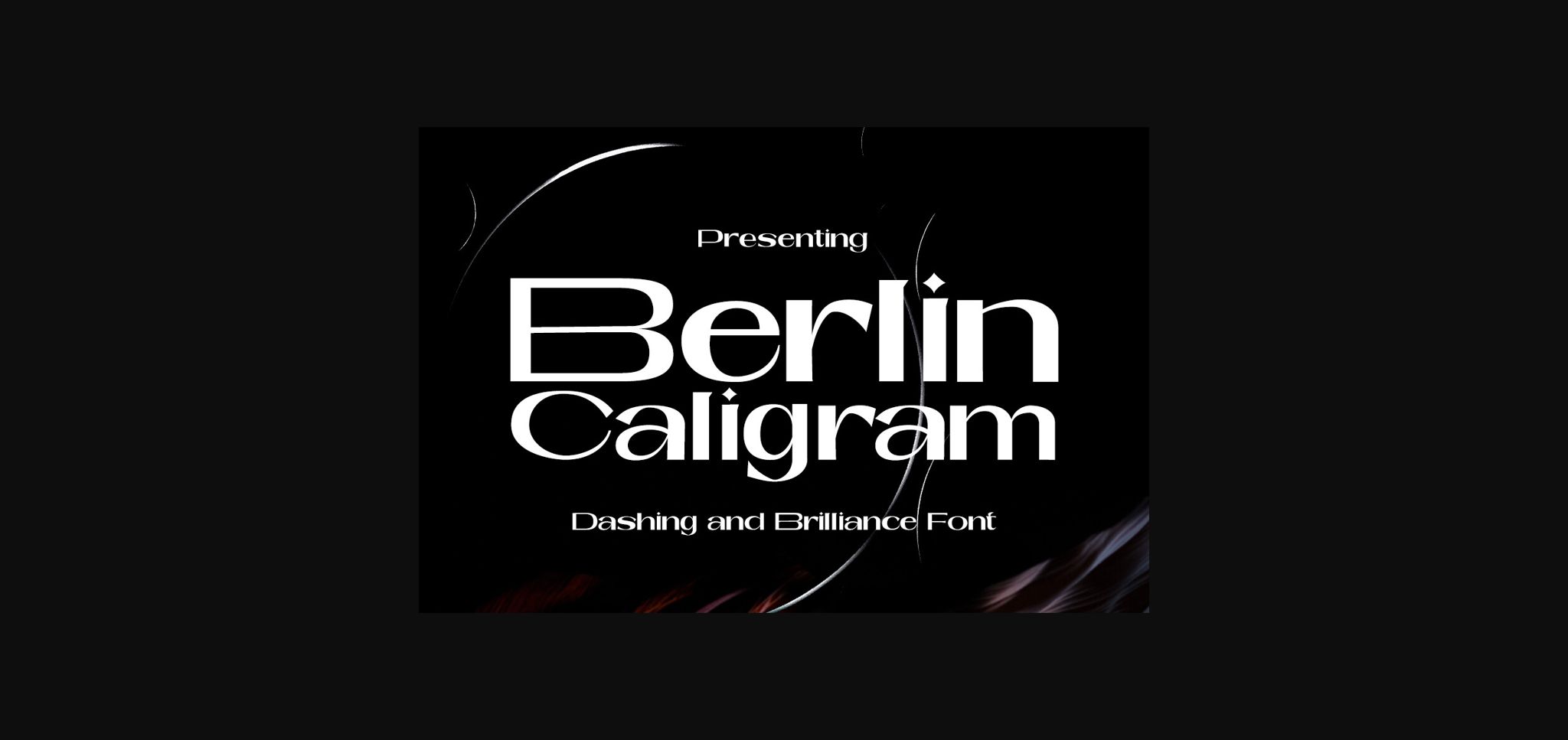
About Berlin Caligram Font
Berlin Caligram is an elegant sans serif font, that features a very delicate and classy look. Not too thin and not too thick, balanced and varied, Florania was designed to enhance the beauty of your projects.